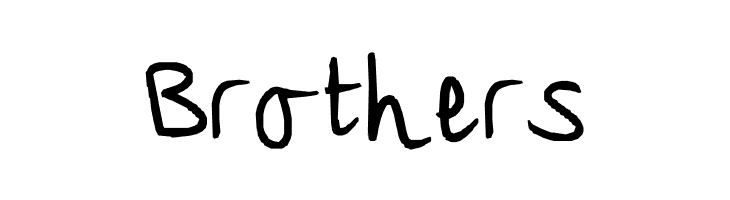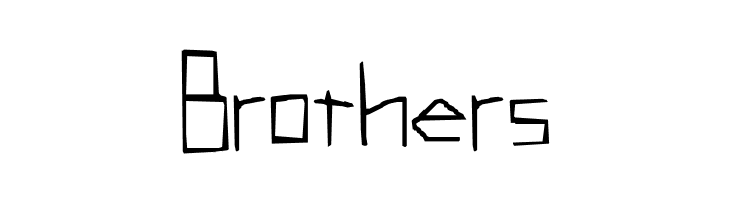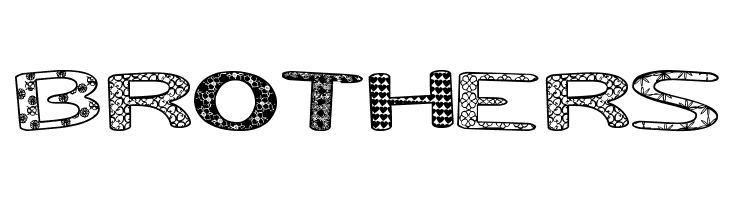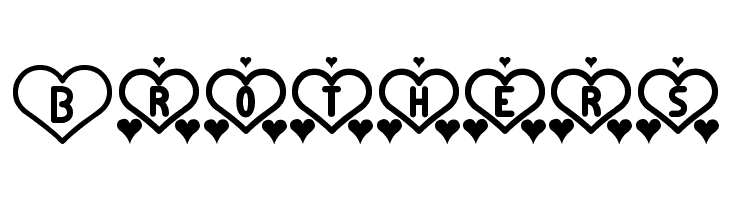
A charming script font with elegant, flowing lines and smooth curves.
A playful, decorative font with unique patterns and textures in each letter.
A bold, brush-style font with an expressive and artistic appearance.
A bold, geometric font with a futuristic and edgy design.
A modern serif font with elegant curves and balanced stroke contrast.
A bold, modern serif font with strong, confident letterforms.
A bold serif font with a classic yet modern appeal, ideal for impactful designs.
A bold, italic serif font with a modern yet classic appeal.
An elegant italic serif font with a classic yet contemporary style.
Elegant serif font with a classic italic slant and moderate contrast.
Elegant serif italic font with moderate contrast and classic styling.
A classic serif typeface with modern elegance and excellent readability.
A classic serif font with modern elegance and medium contrast.
A bold serif font with strong, classic features and excellent readability.
Bold, italic serif font with medium contrast and classic elegance.
A classic serif font with a modern italic style and moderate stroke contrast.
A bold, expressive handwritten font with dynamic strokes.
A playful, rounded font with smooth curves and a friendly appearance.
A clean, modern sans-serif font with excellent readability and uniform design.
An elegant, flowing script font with ornate uppercase and smooth lowercase characters.
An elegant script font with flowing, cursive style and intricate flourishes.